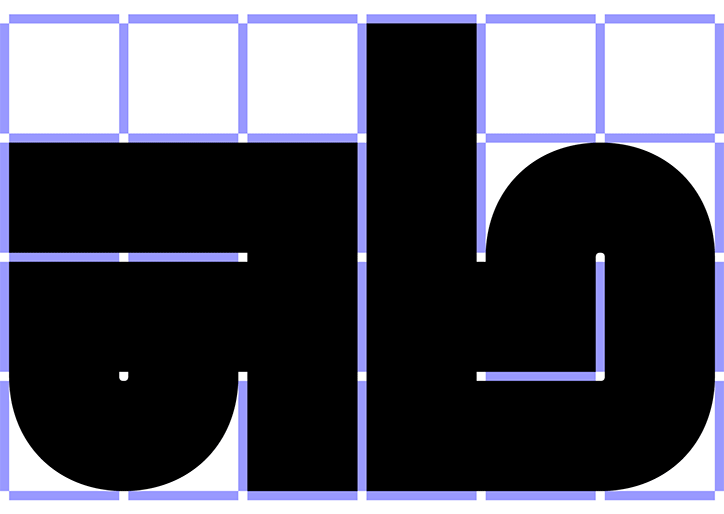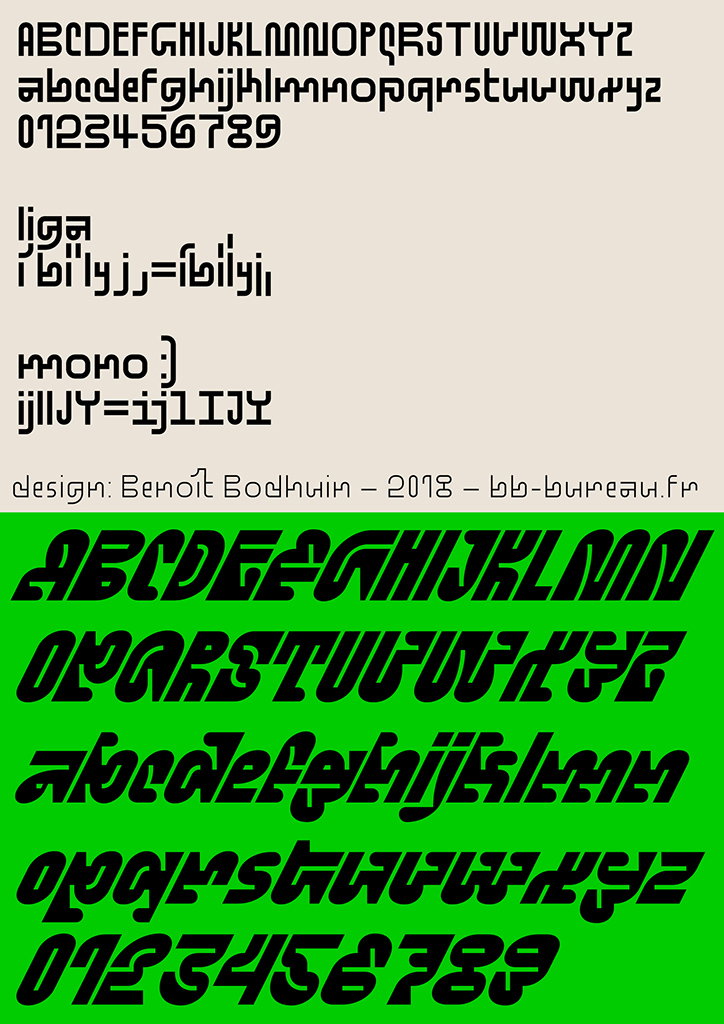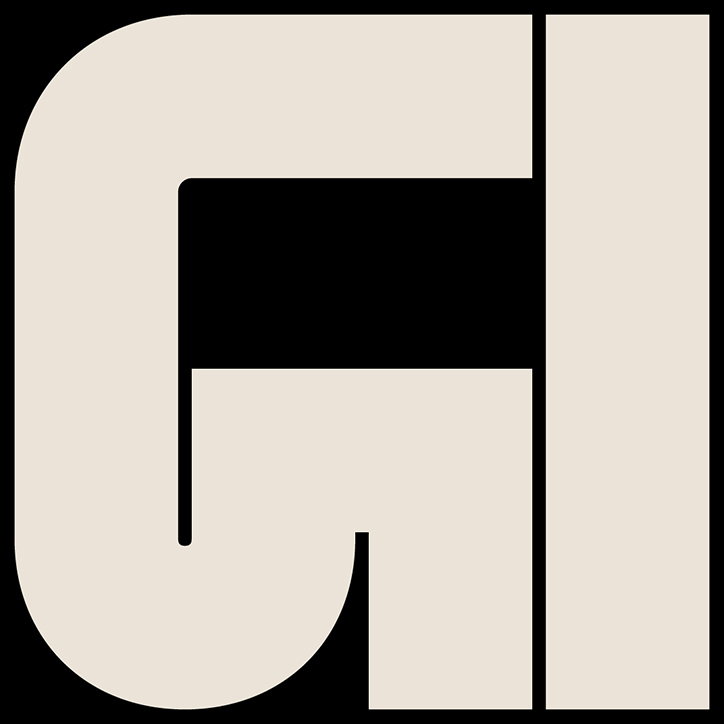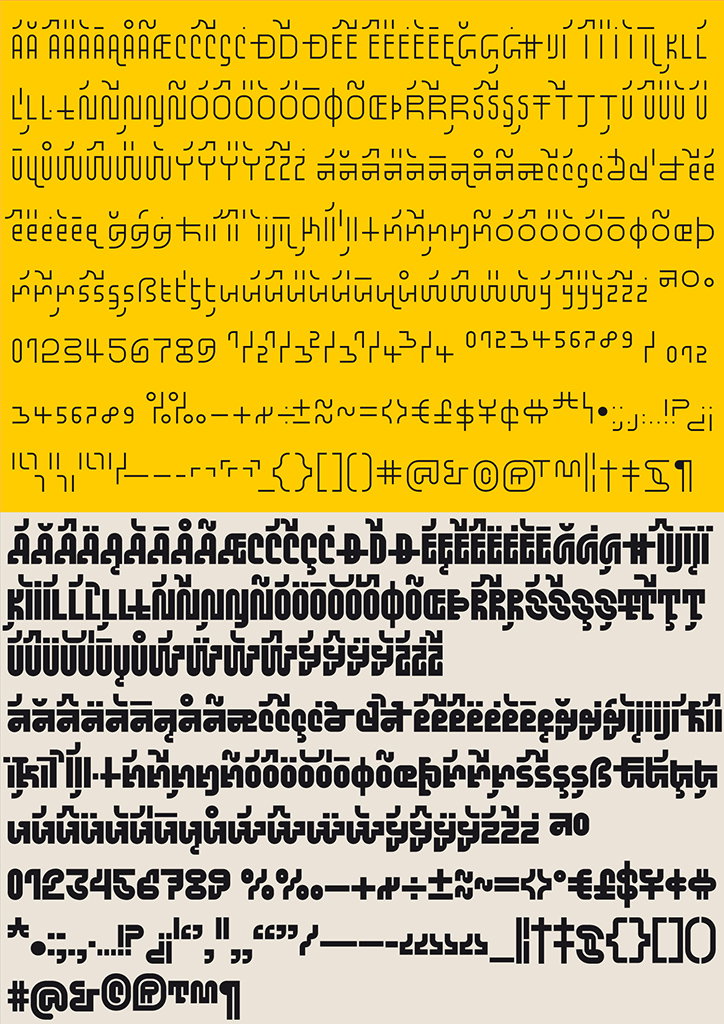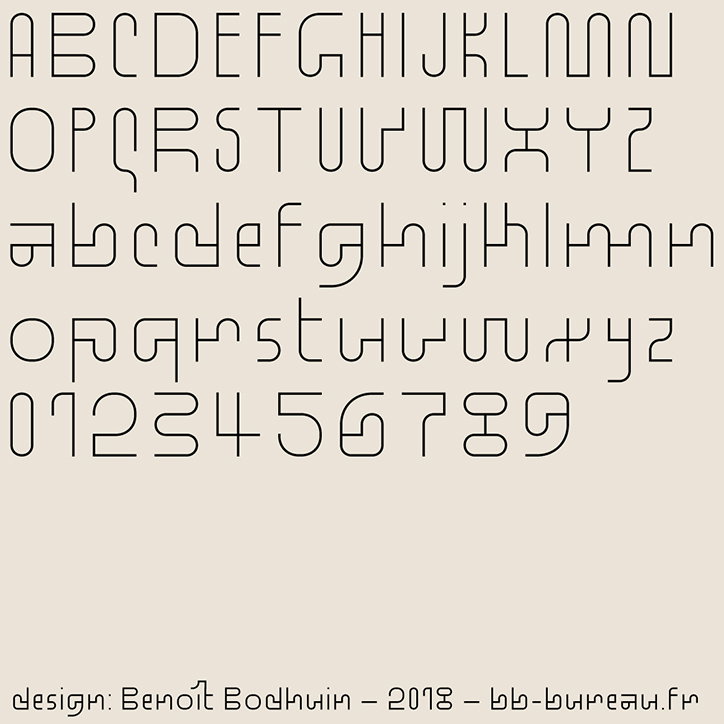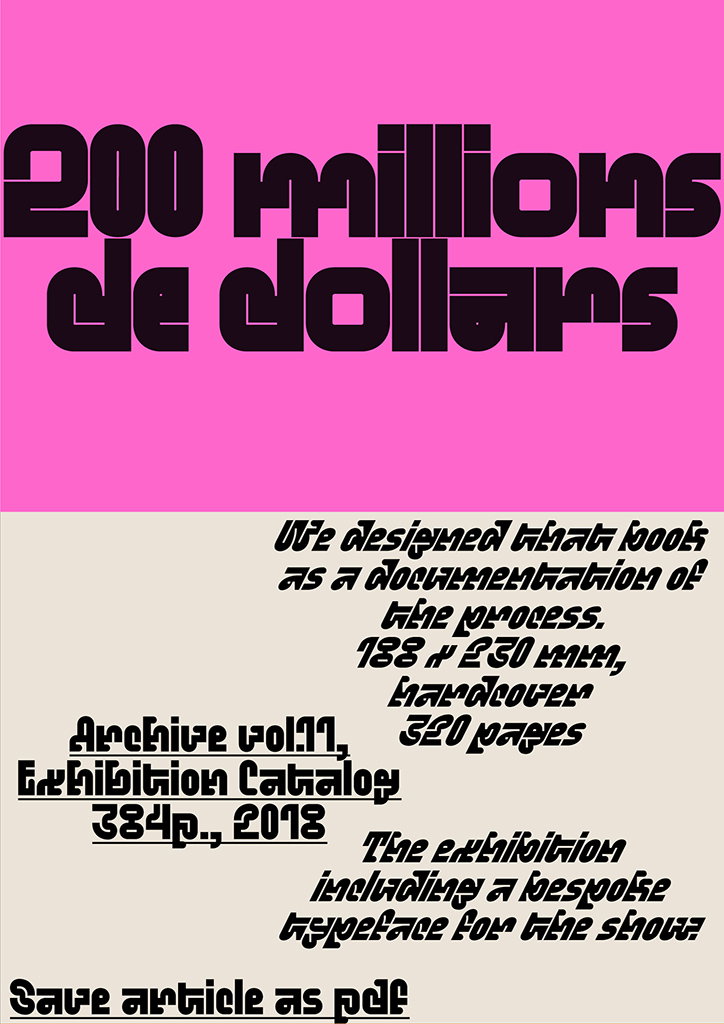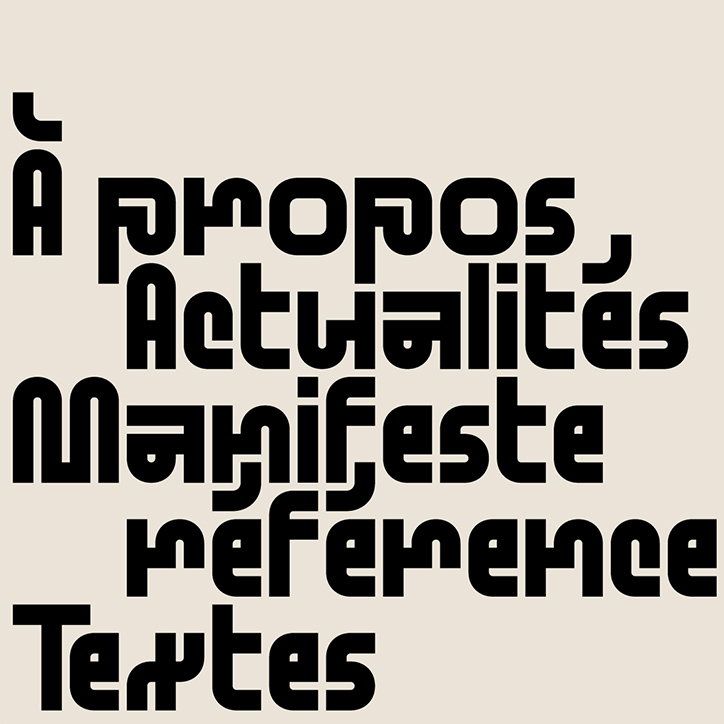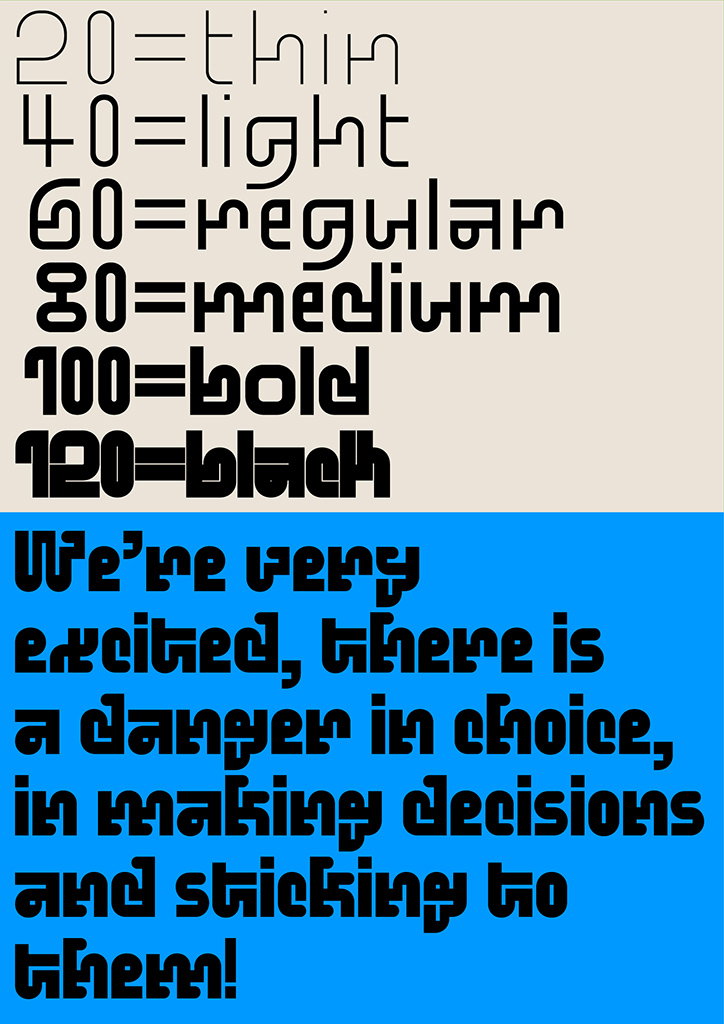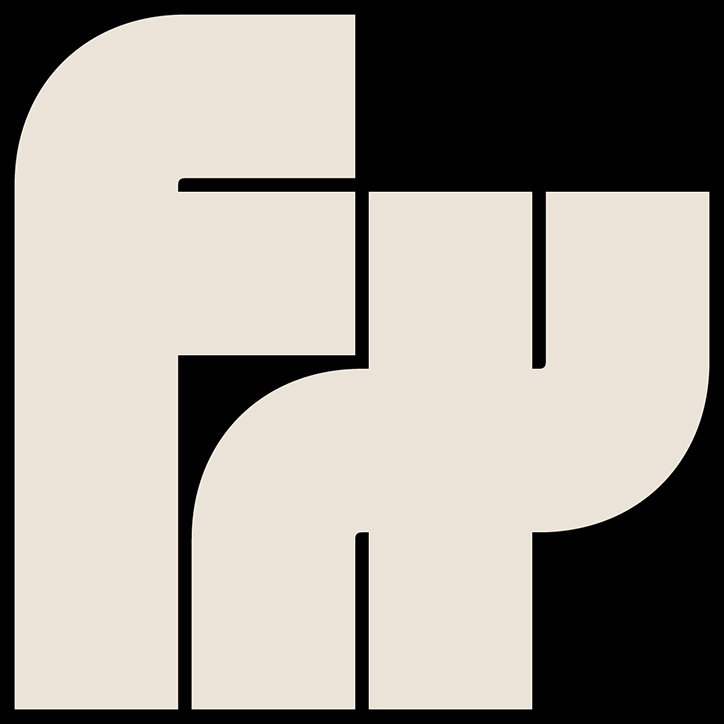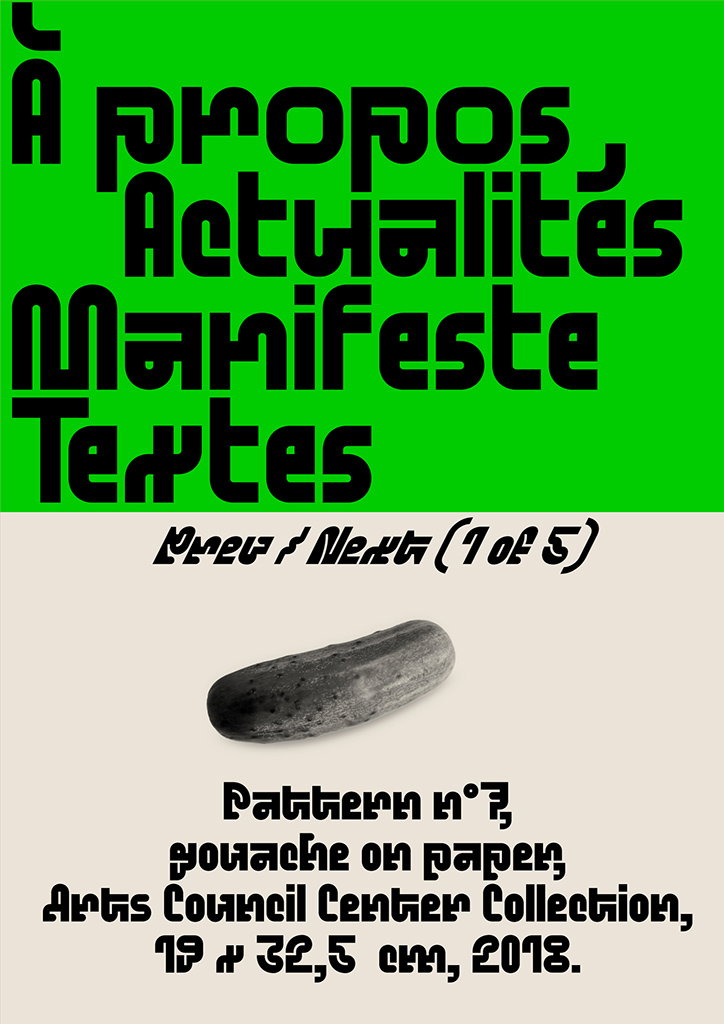
Typeface Pickle-Standard both obeys and rejects the grid at the same time
Benoît Bodhuin claims to be “curious about everything” which is a useful trait for a graphic designer. Specialising in type design, Benoît has designed a wide variety of type families including Marriane, Zigzag and Mineral. Continuing to impress us with a determination to push the limits of the abstract letterforms Benoît’s most recent creations are two grid inspired typefaces Standard and Pickle-Standard.
Both typefaces feature wonderfully quirky latin glyphs, maze-like in its even distribution between straight lines and curves. Standard comes in six different weights from 20 to 120. Its heaviest weight feels overpoweringly dense with slivers for counters and eyes (that’s the empty space within the ‘o’ and ‘e’). Comparatively, its lightest weight is airy and the letterforms are pointedly defined by the awkwardly shaped bowls in the form of semi-circles that jut out of the stems.
On the other hand, Pickle-Standard comes in three different styles: italic, regular and reversed italic. Pickle-Standard is a more rounded typeface and soft curves cushion the numerous bends that distinguish these highly-stylised typefaces. The slanting italic and reversed italic styles are particularly sleek, as the italicised horizontal lines run in strict parallels to one another creating smooth feelings of satisfaction. On the design of the typefaces, Benoît says “its drawing obeys and emancipates from the grid at the same time”. There is an elegant balance between the typeface’s straight lines that adhere to the grid contrast with its curves offering an irregular personality.
The typeface is informed by Benoît’s other experiments in type as well as an interest in architectural signage. He designed the first drafts of the typeface based on a grid with guidance from his architect friend Nicolas Gautron. From there, Benoît developed Standard and its six weights, followed by Pickle-Standard as a fun alternative.
The type designer likens this creative process to conducting an orchestra of letters. He tells It’s Nice That: “I try to turn noise into something harmonious”, working painstakingly “as a sculptor” who is very slowly “modifying, correcting, regulating every detail until I get what I want.” Benoît finally asserts that his design decisions are made according “to what I hear from the orchestra” and sometimes, “some decisions change according to my mood.”
Benoît Bodhuin: Standard and Pickle-Standard
Benoît Bodhuin: Standard
Benoît Bodhuin: Standard and Pickle-Standard
Benoît Bodhuin: Standard
Benoît Bodhuin: Standard and Pickle-Standard
Benoît Bodhuin: Standard
Benoît Bodhuin: Standard and Pickle-Standard
Benoît Bodhuin: Standard
Benoît Bodhuin: Standard and Pickle-Standard
Benoît Bodhuin: Standard
Benoît Bodhuin: Standard and Pickle-Standard
Benoît Bodhuin: Standard